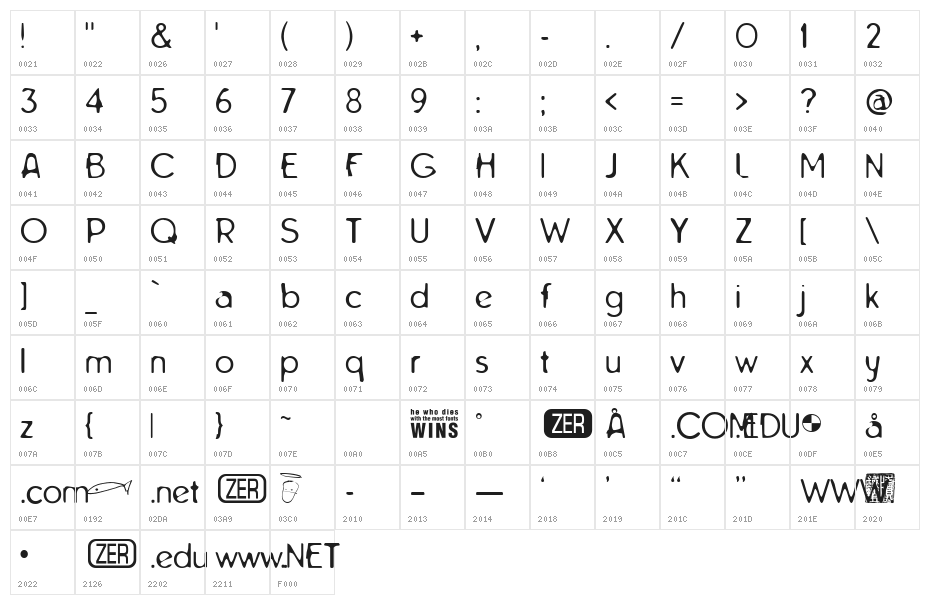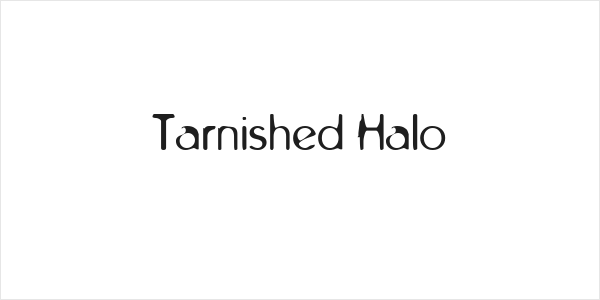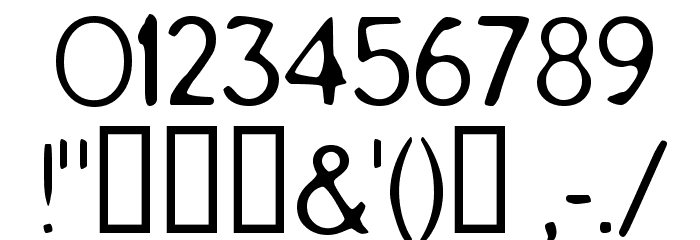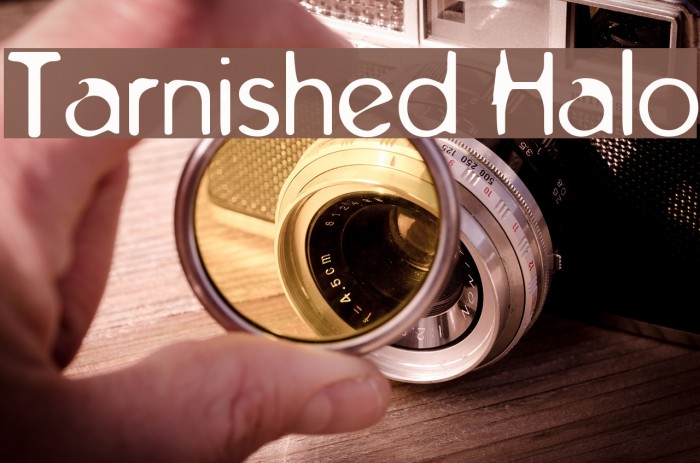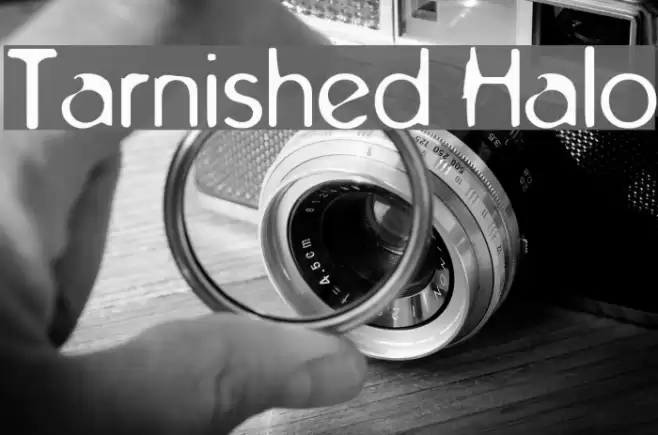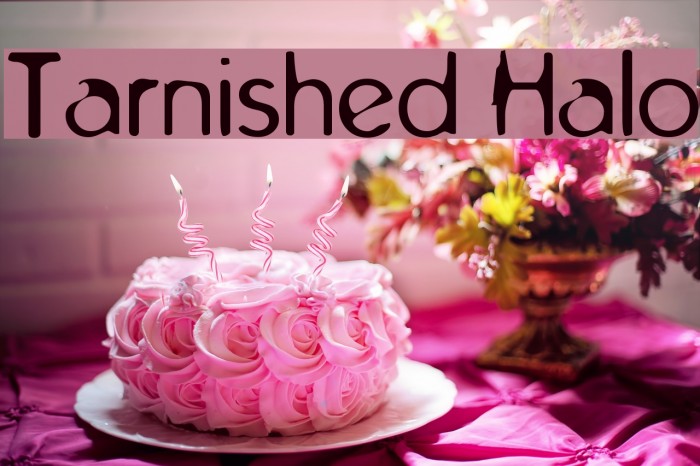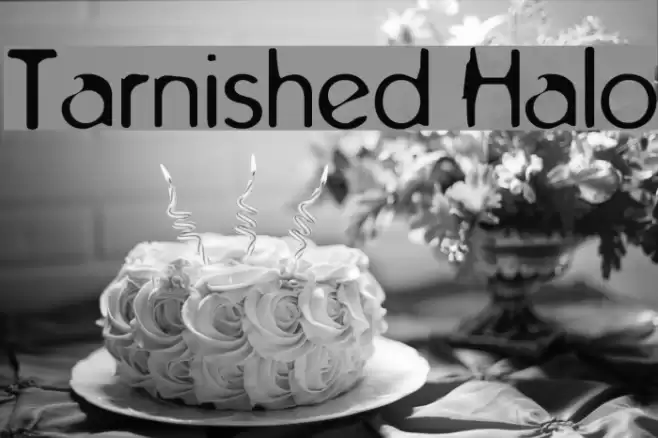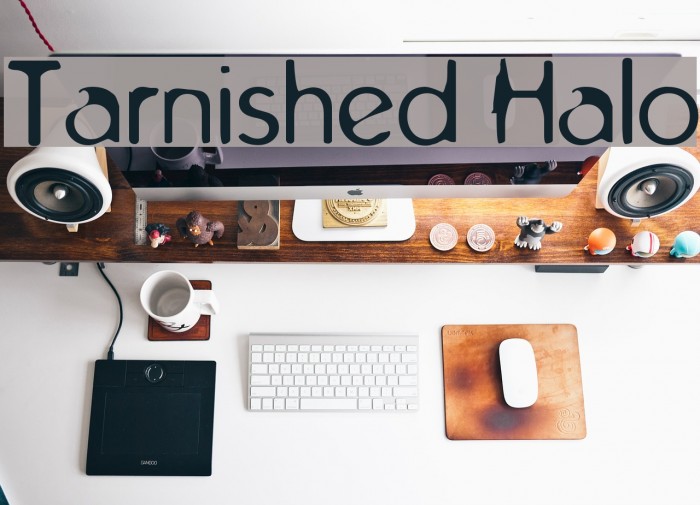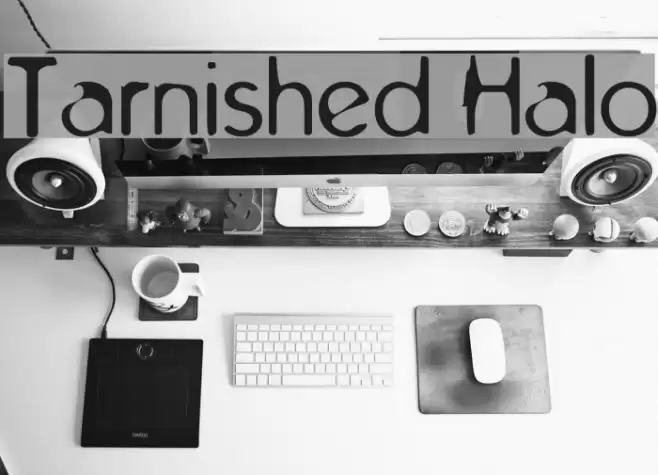
Tarnished Halo Font
Tarnished Halo Description
This font features a unique and artistic style with an irregular, hand-drawn appearance. The uppercase letters have a bold, slightly distorted look, giving them a playful and whimsical feel. The lowercase letters maintain a consistent style, with rounded edges and a casual, approachable demeanor. Numbers are similarly styled, with a quirky yet readable design. Special characters are creatively integrated, maintaining the overall aesthetic. This font is perfect for projects that require a touch of creativity and individuality, such as artistic posters, children's books, or branding for creative businesses.
| Overall Style | Artistic, Whimsical, Playful |
| Proposed Projects | Ideal for artistic posters, children's books, creative branding, and unique invitations. |